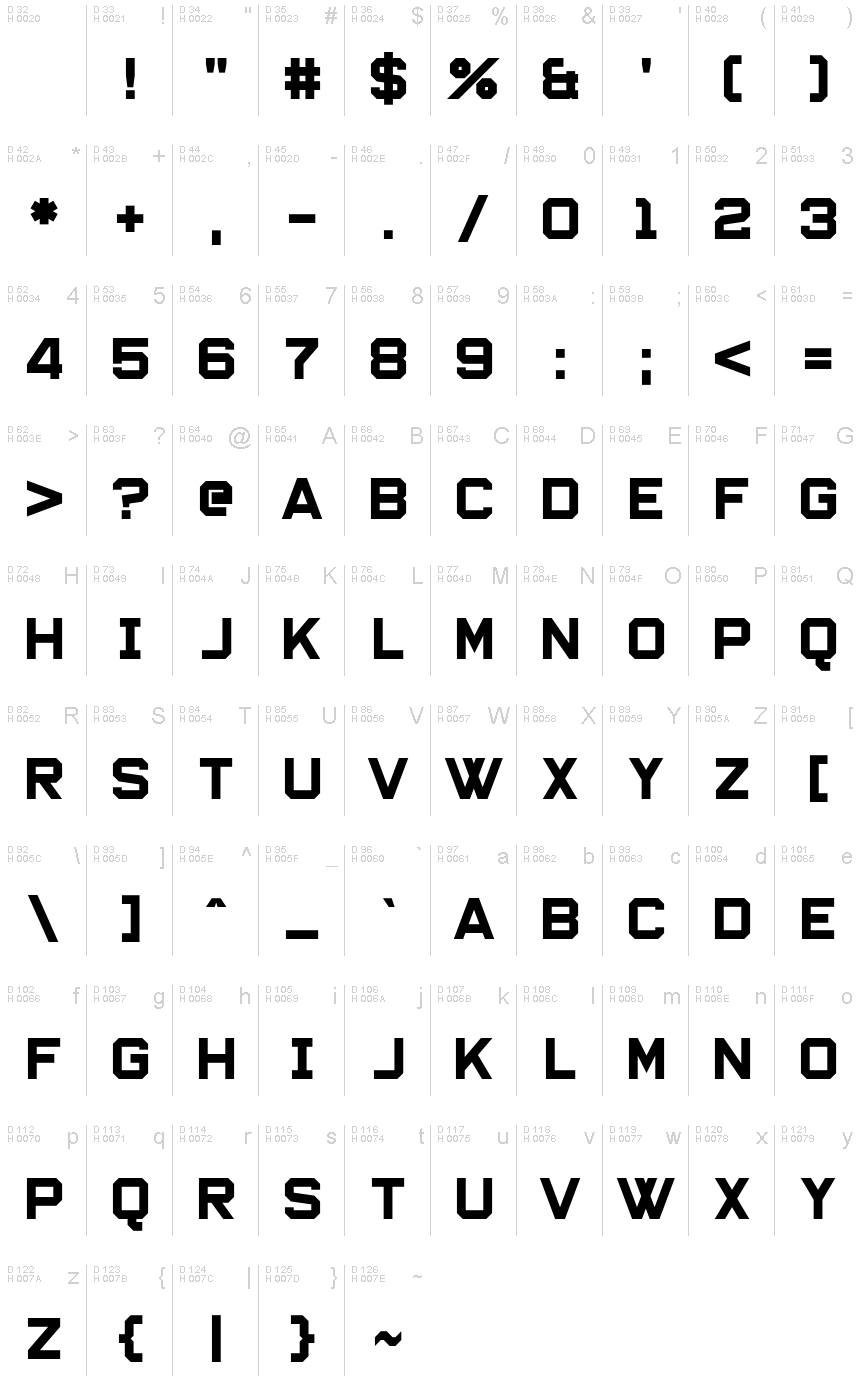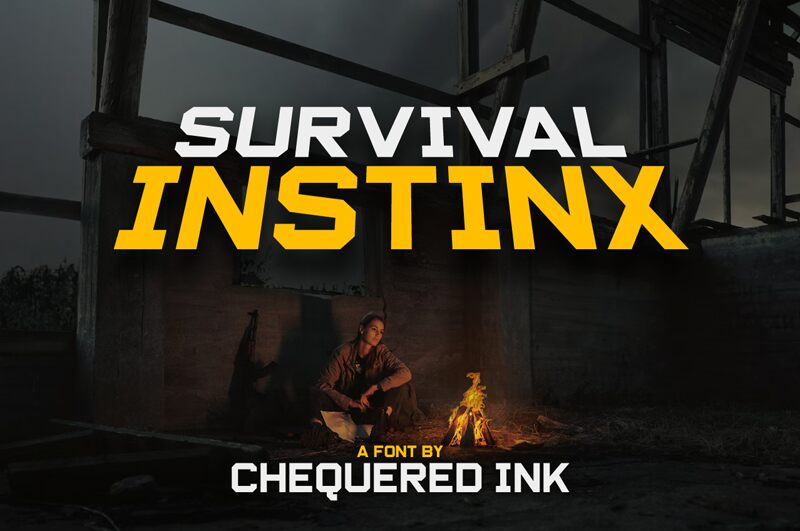
Survival Instinx
Survival Instinx, a bold and captivating font created by Chequered Ink, exudes a raw, gritty aesthetic that commands attention. Its angular letterforms and striking balance of thick and thin strokes convey a sense of primal strength and resilience, evoking the rugged spirit of survival. The font's bold presence lends itself seamlessly to impactful headings, attention-grabbing logos, and poignant typographic compositions.
This versatile font can elevate a wide range of design projects, from editorial layouts and packaging designs to advertising campaigns and branding initiatives. Its distinctive character makes it an ideal choice for projects that require a bold, attention-grabbing aesthetic, whether it's highlighting a powerful message, emphasizing a brand's edgy personality, or creating a visually striking narrative.